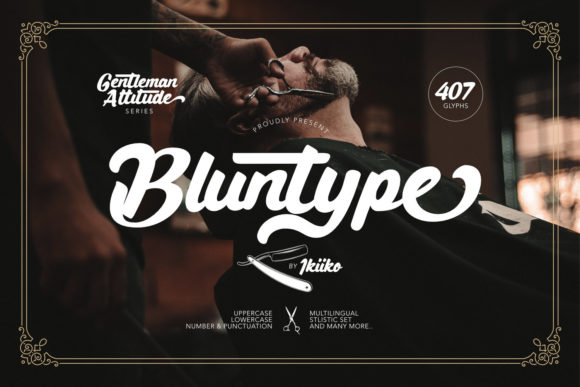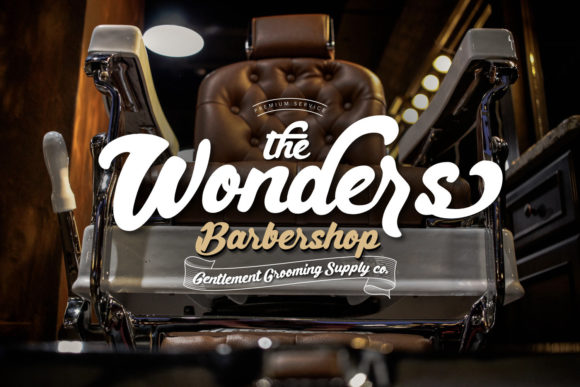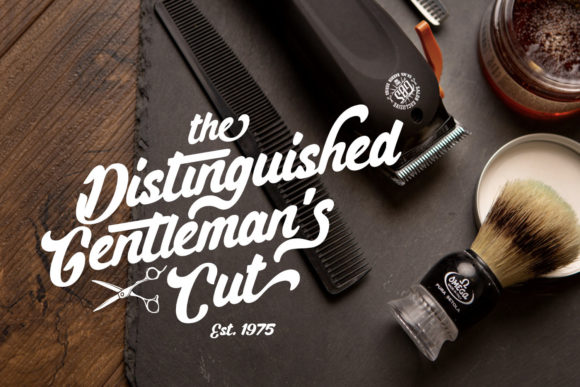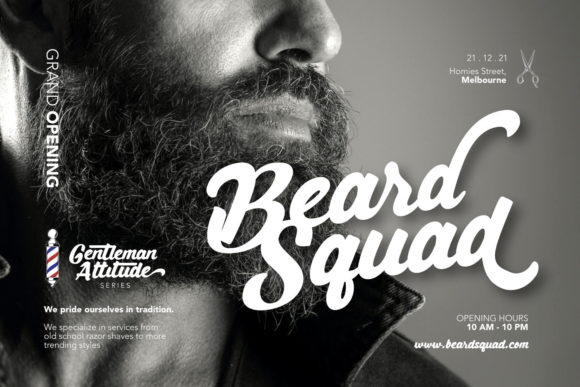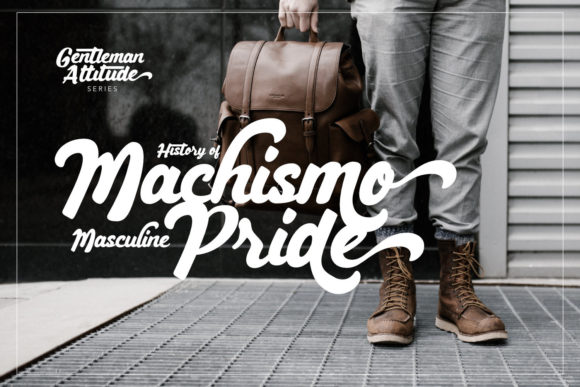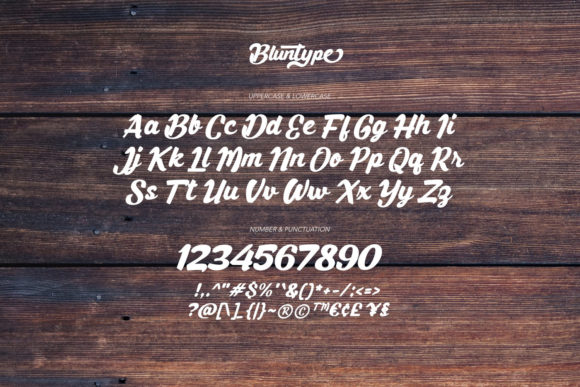
About Bluntype Font
Bluntype is a stylish and retro designed handwritten font. It looks stunning on wedding invitations, thank you cards, quotes, greeting cards, logos, business cards and every other design which needs a handwritten touch.